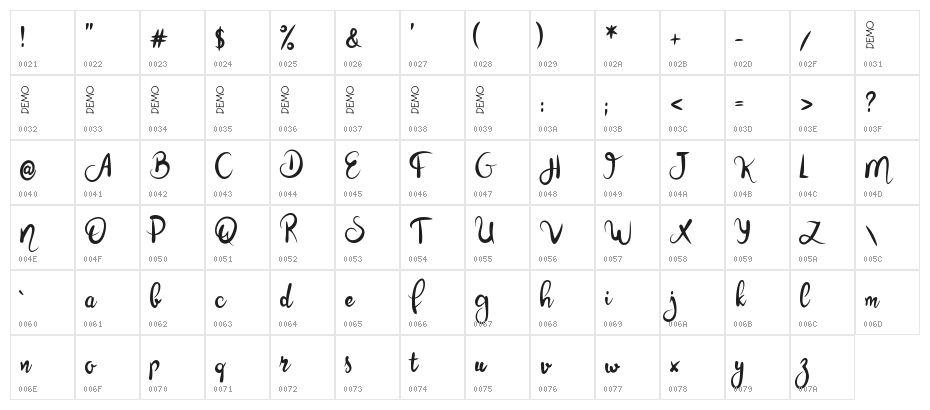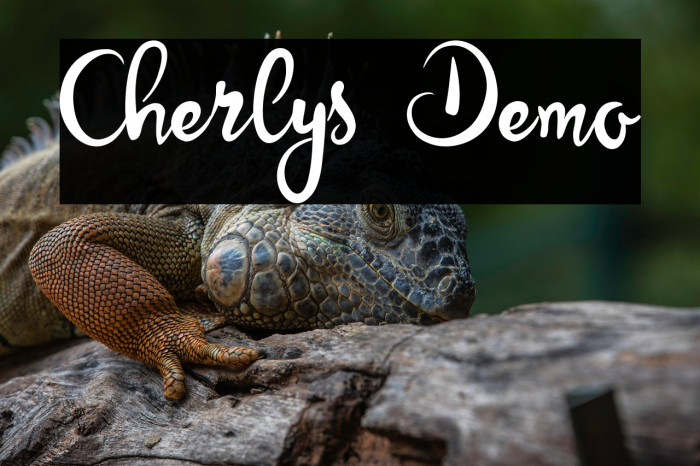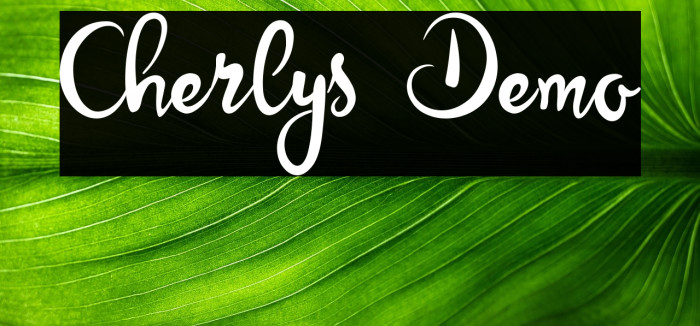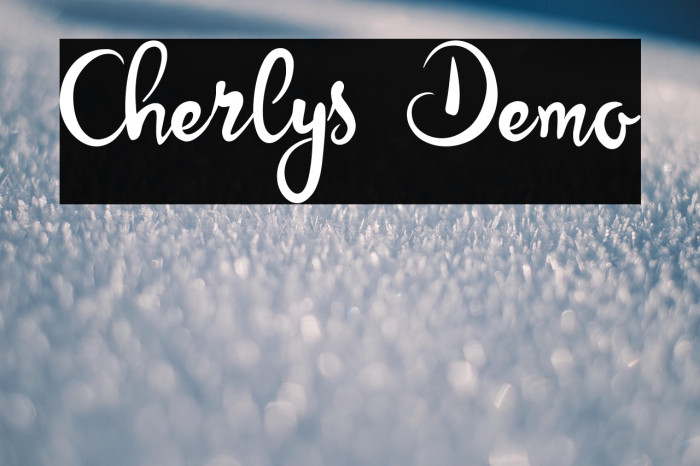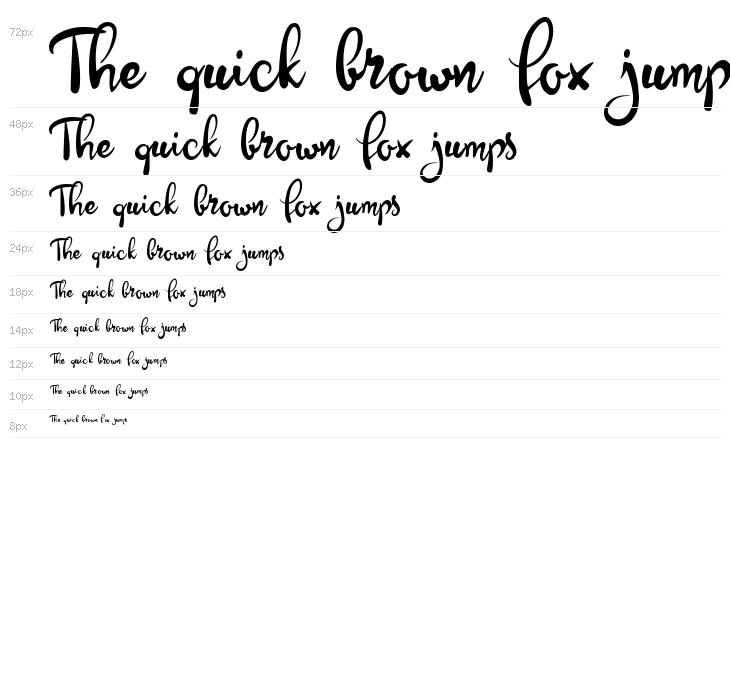
Cherlys Demo Font
Cherlys Demo Description
This font exhibits a playful and elegant script style, characterized by its flowing, cursive letterforms. The uppercase letters are bold and expressive, with sweeping curves and loops that give a sense of movement and grace. The lowercase letters maintain a consistent style, with a slightly more compact and rounded appearance, enhancing readability while preserving the decorative flair. The numerals and special characters are designed to complement the overall aesthetic, featuring similar curves and strokes. This font's unique style makes it suitable for creative and artistic projects, where a touch of sophistication and personality is desired.